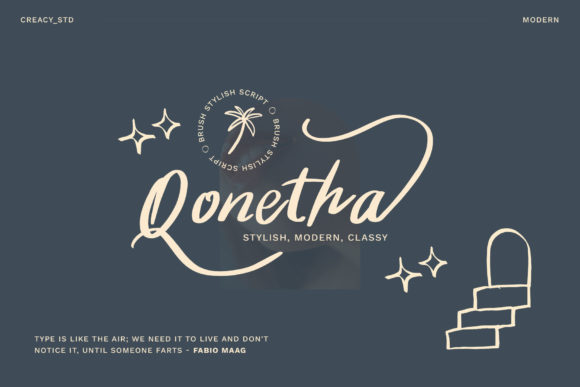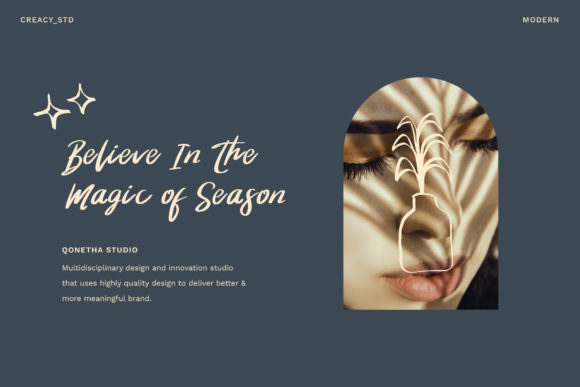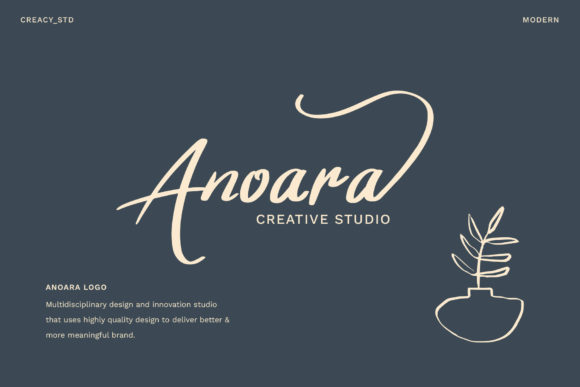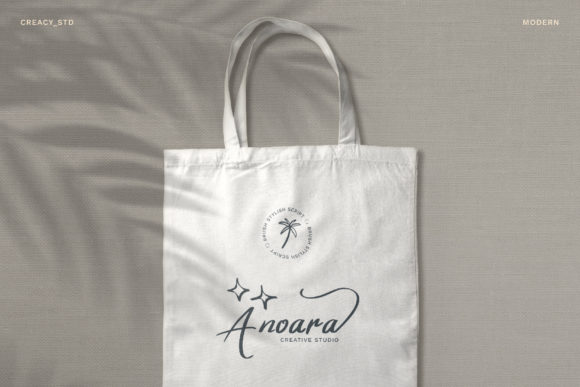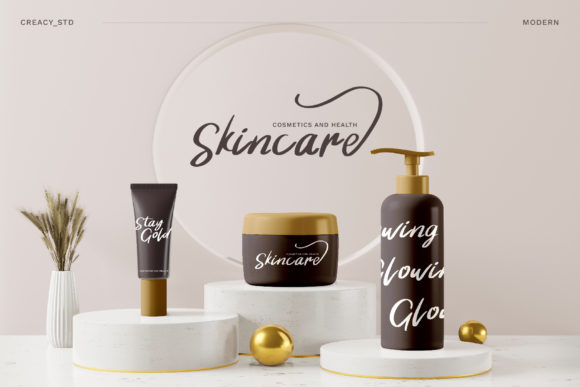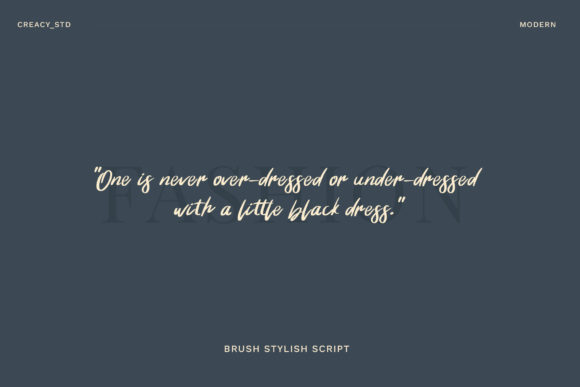
Qonetha Font
About Qonetha Font
Qonetha consists of a fashionable and sophisticated signature-style script with its own unique curves and an elegant inky flow. It looks stunning on wedding invitations, thank you cards, quotes, greeting cards, logos, business cards and every other design which needs a customized touch.